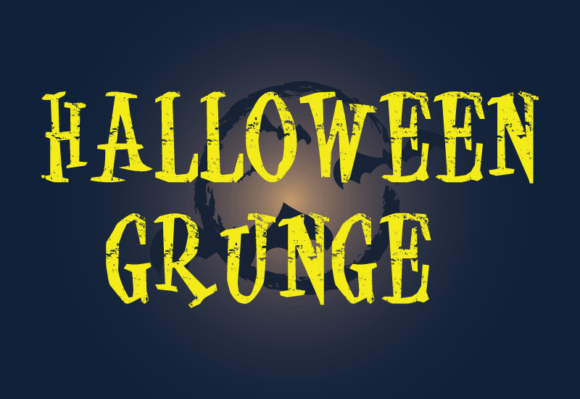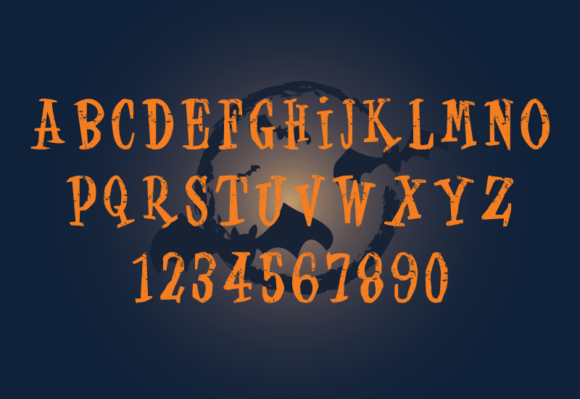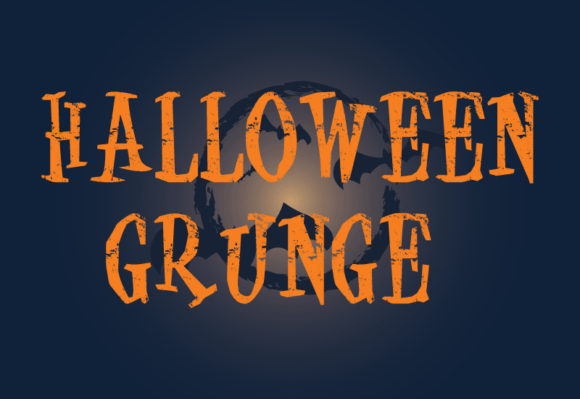
Unleash the Spooky Charm with Halloween Grunge Font
As the spookiest time of the year approaches, designers and crafters are on the lookout for the perfect typography to add an eerie edge to their projects. Look no further than the Halloween Grunge Font, a wickedly stylish typeface that embodies the quintessential Halloween aesthetic. With its horror-inspired elements, bleeding texture, and distinct appeal, this font is sure to cast a spell on your audience.
The Essence of Halloween in Every Character
The Halloween Grunge Font is more than just a collection of letters – it’s an experience. Each alphabetic character is carefully crafted to evoke the spirit of All Hallows’ Eve, with intricate details that will transport your designs to a world of spooky wonder. From the twisted, gnarled lines to the blood-curdling texture, every element of this font is designed to send shivers down the spine.
What Makes Halloween Grunge Font So Special?
- Eerie Texture: The bleeding texture of this font gives it a hauntingly realistic quality that’s perfect for creating designs that are both eerie and captivating.
- Horror-Inspired Elements: Each character is infused with horror-inspired elements that will add a touch of the macabre to your designs.
- Distinct Appeal: The Halloween Grunge Font has a unique charm that’s sure to draw the eye and leave a lasting impression.
- Versatility: Whether you’re designing invitations, posters, or social media graphics, this font is versatile enough to adapt to any creative project.
Breathe Life into Your Designs with Halloween Grunge Font
Are you tired of using the same old fonts for your Halloween designs? Do you want to create something that will stand out from the crowd and leave a lasting impression? Look no further than the Halloween Grunge Font. With its uncanny flair and haunting charm, this font is sure to breathe new life into your creative projects.
Whether you’re a professional designer or a crafter looking for a unique touch, the Halloween Grunge Font is the perfect addition to your toolkit. Here are just a few ways you can use this font to elevate your designs:
- Halloween Invitations: Create spooky invitations that will set the tone for a howling good time.
- Social Media Graphics: Add a touch of the eerie to your social media graphics and make your followers take notice.
- Posters and Flyers: Create eye-catching posters and flyers that will grab attention and draw people in.
- Crafting Projects: Add a personal touch to your crafting projects, such as Halloween-themed cards, gift tags, and decorations.
Get Ready to Cast a Spell with Halloween Grunge Font
With its wickedly stylish design and eerie charm, the Halloween Grunge Font is sure to cast a spell on your audience. So why wait? Download this font today and unleash the spooky charm of Halloween in your designs. Whether you’re a designer, crafter, or simply someone who loves the spooky season, this font is sure to become a go-to in your toolkit.
In conclusion, the Halloween Grunge Font is a must-have for anyone looking to add a touch of the eerie to their designs. With its horror-inspired elements, bleeding texture, and distinct appeal, this font is sure to bring the spirit of Halloween to life in your creative projects. So don’t miss out on the opportunity to unleash the spooky charm of Halloween Grunge Font – download it today and get ready to cast a spell on your audience!